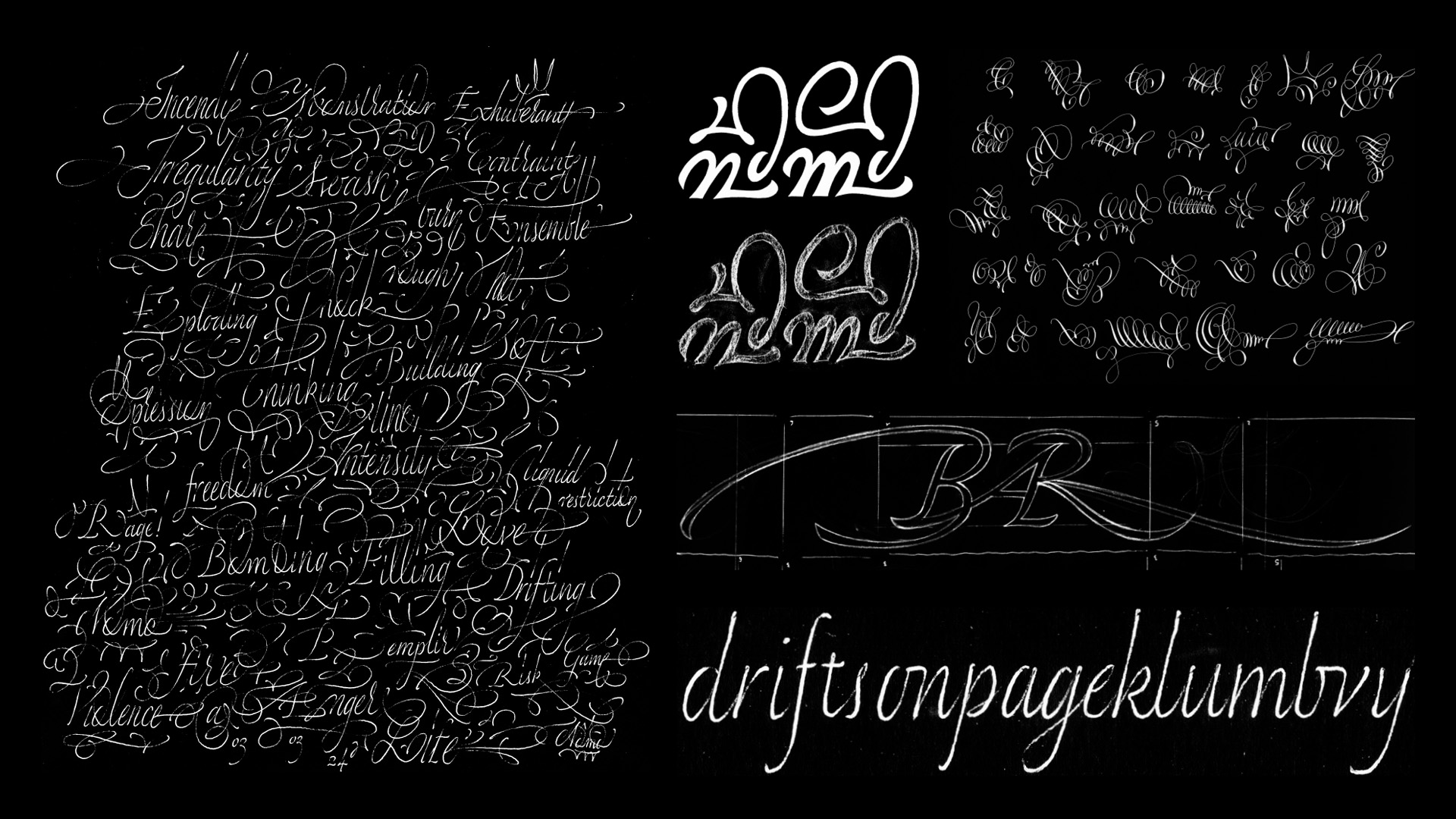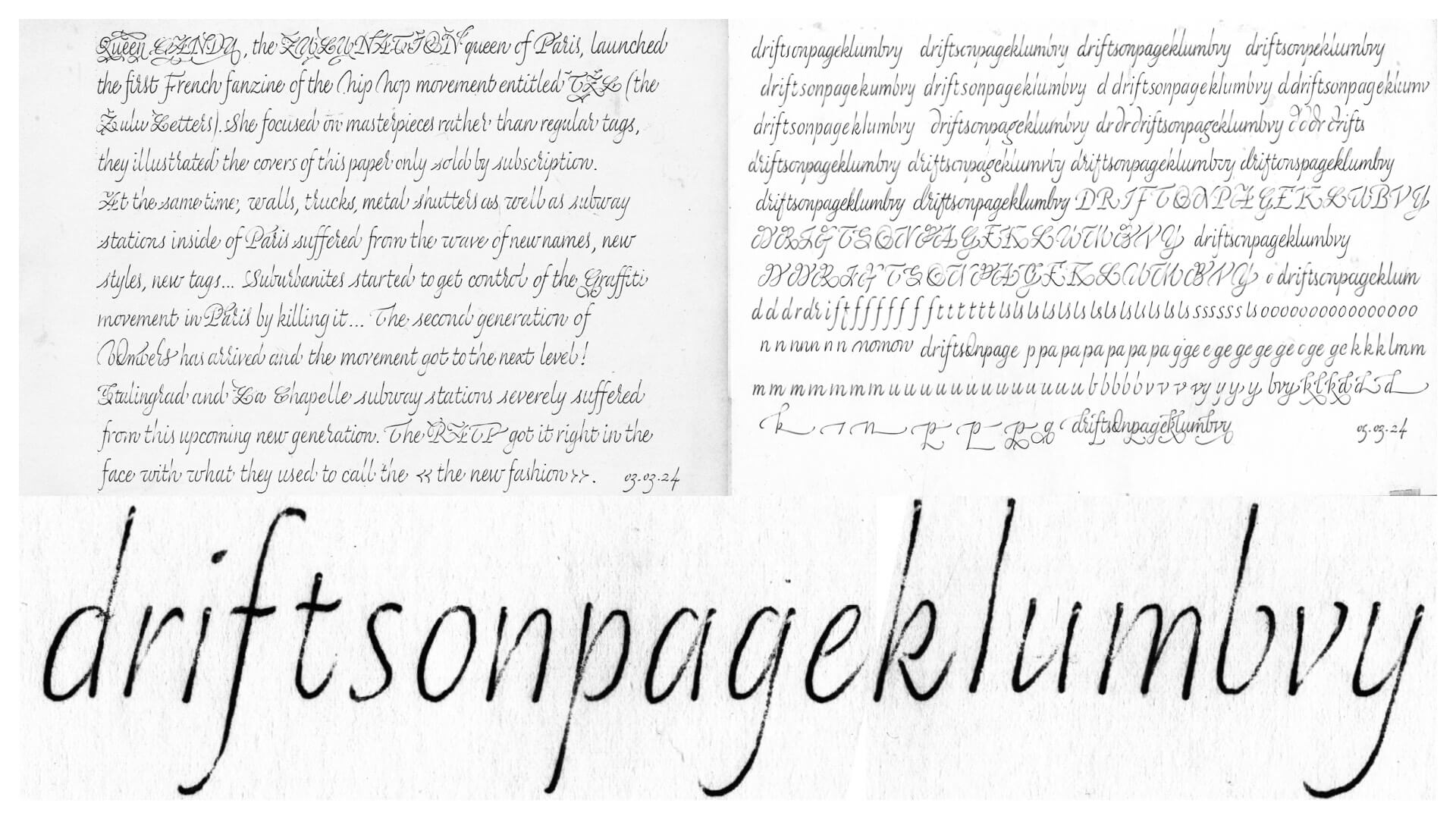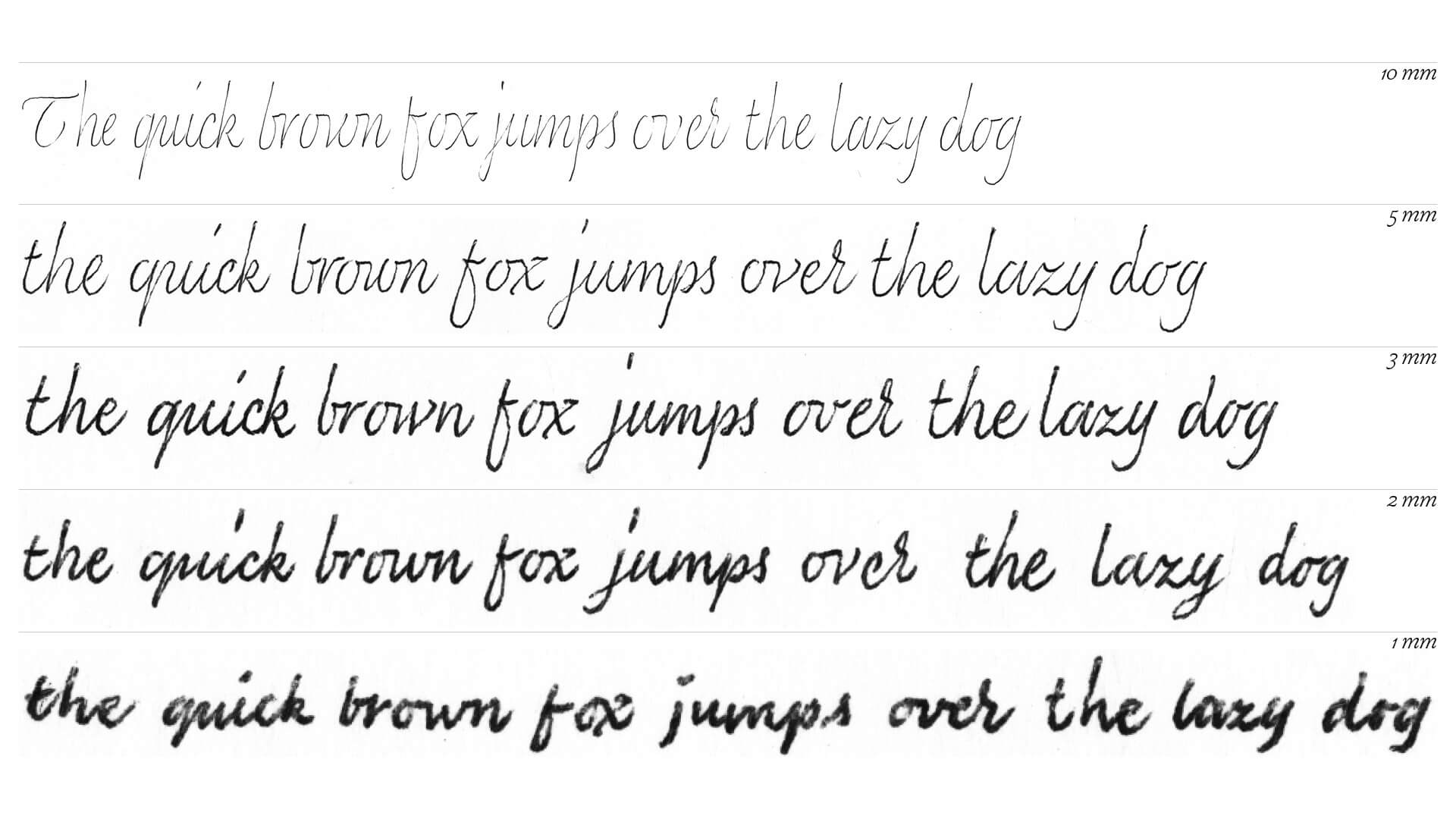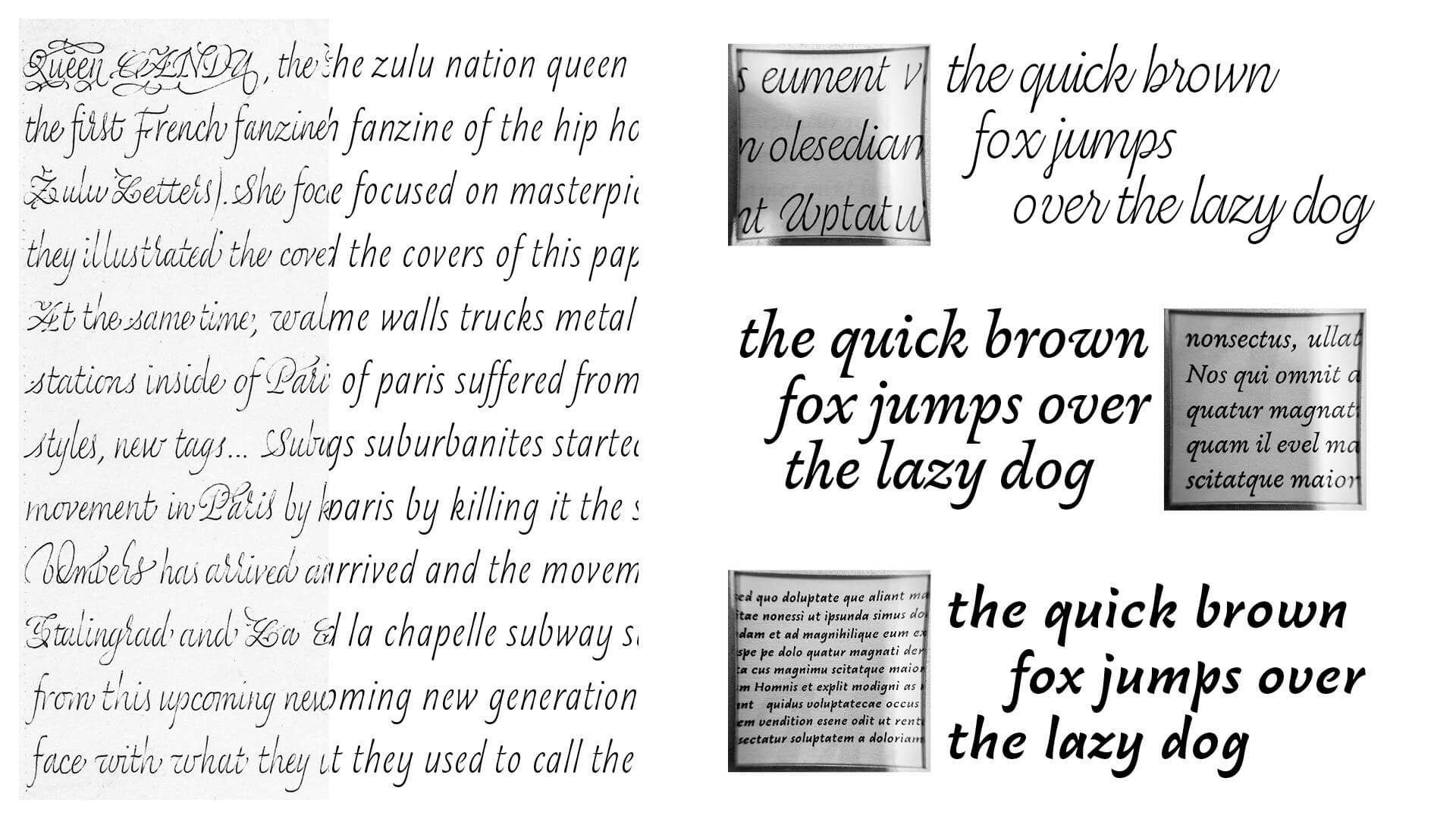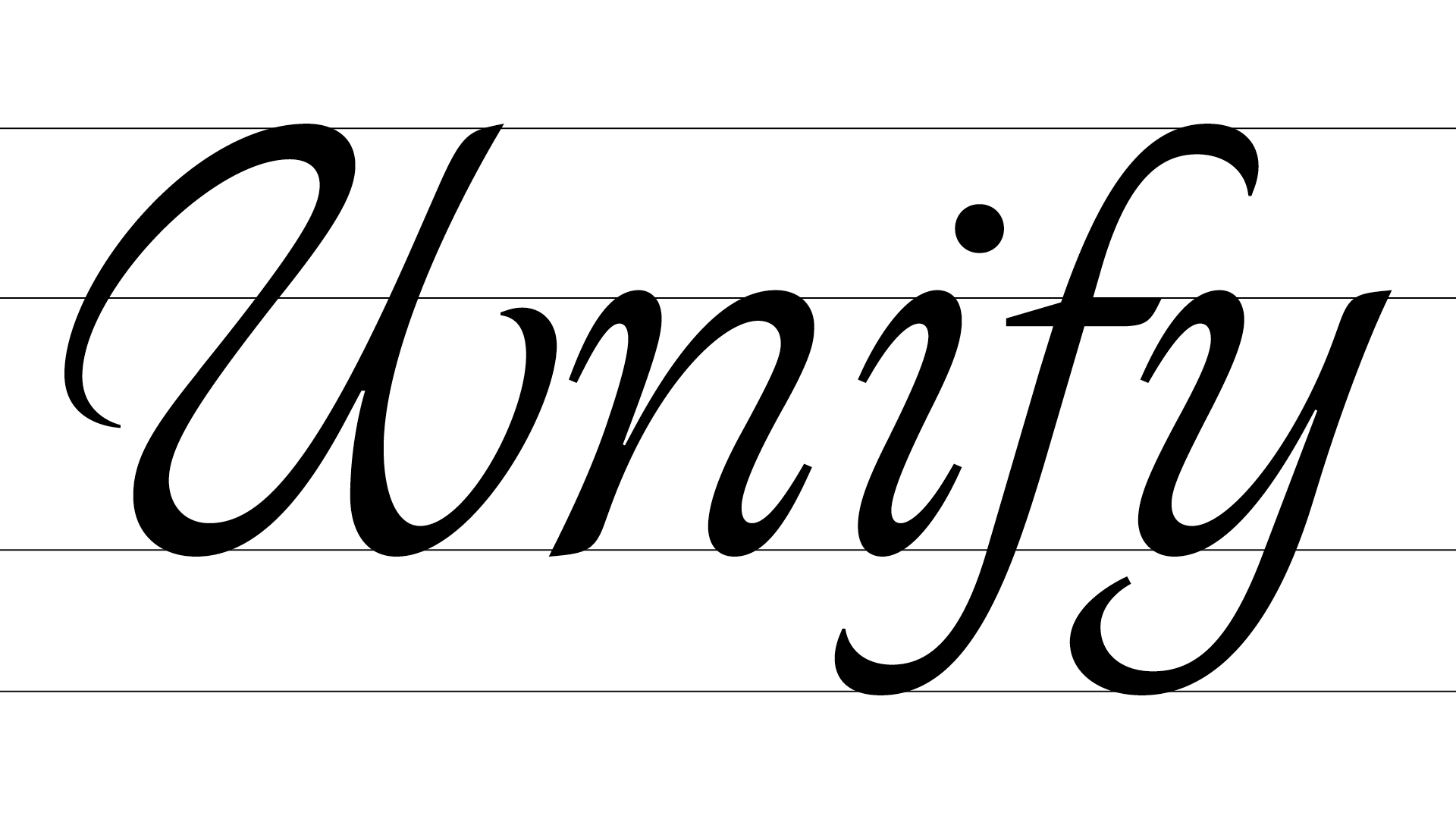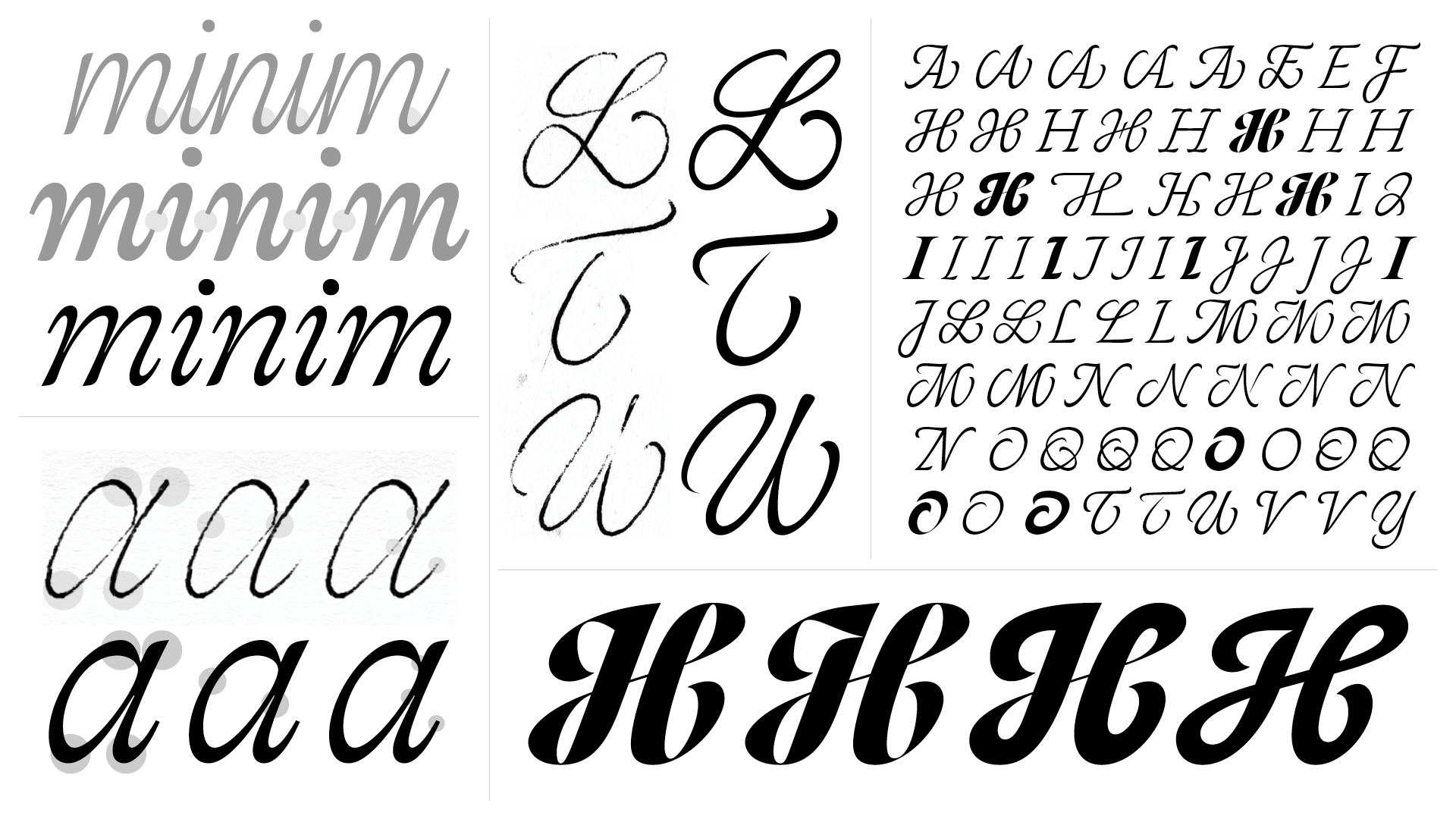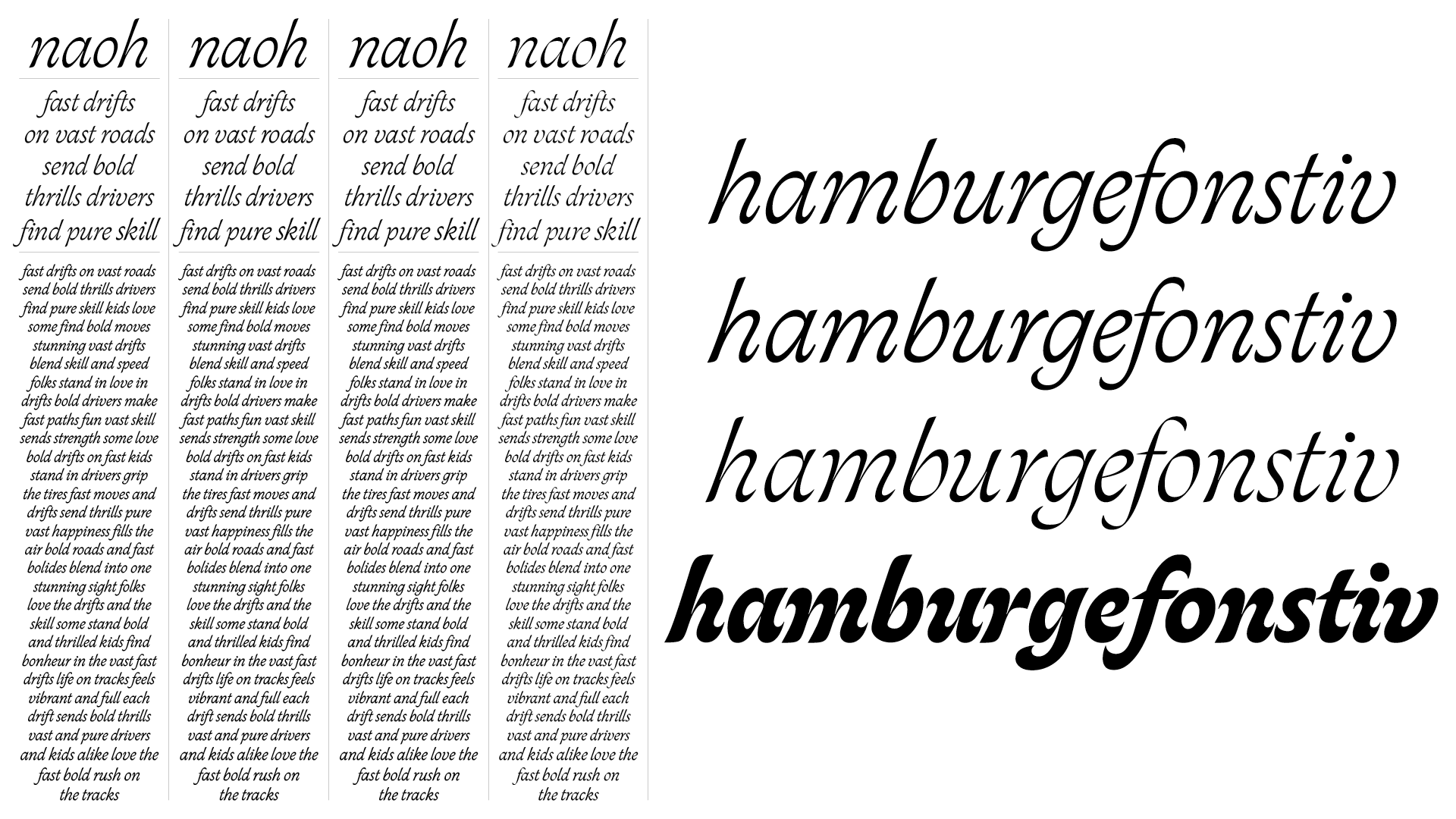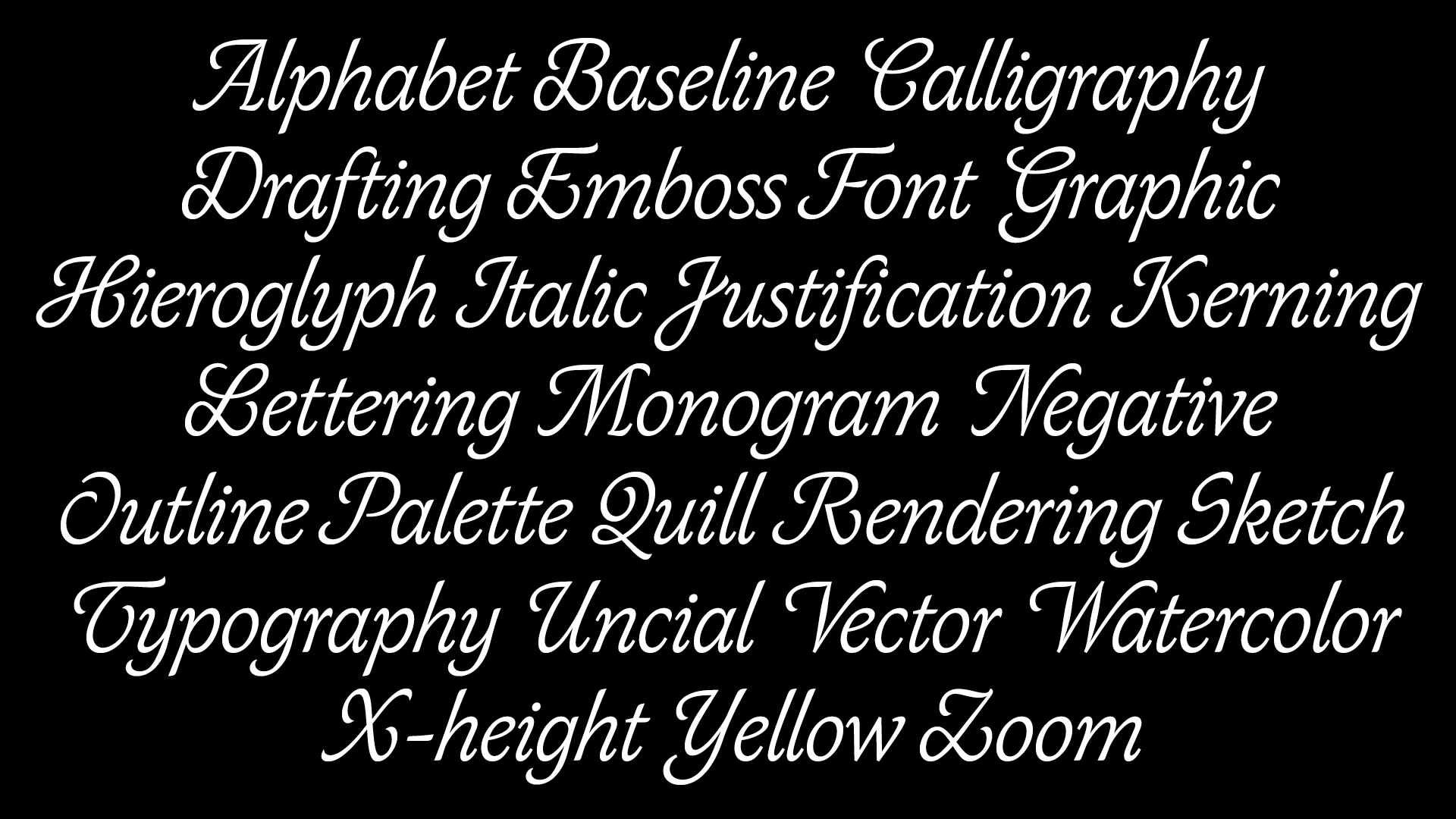
Benjamin Rouzaud is a French type designer and calligrapher. He previously studied graphic design and typography in Paris at École Duperré and École Estienne. Alongside his work as a freelance designer he developed an analogue practice of calligraphy which he now merges with digital tools to explore the expressive potential of writing systems. He focuses on the interaction between written and spoken language with particular attention to form and formatting in relation to cultural identity, contemporary art and education.
Skeed is an exploration rooted in the use of a simple ballpoint pen where Benjamin embraced physicality and intuition to uncover unexpected letterforms shaped by movement and sensation. Throughout the programme, he engaged in writing exercises to navigate the balance between formal/informal structures. This process marked a shift from a purely instinctive calligraphic practice to a more methodical design approach revealing a fundamental tension between the practice of the hand and the practice of digital design.
To find the right direction Benjamin first had to accept that digital tools would inevitably change the feeling of the ballpoint pen calligraphy, so the goal became to capture the gesture rather than replicate it exactly. He focused on clarity and readability while striving to preserve sensitivity within the constraints of digital design.
Skeed consists of an italic with interpolating variations in weight, a set of ligatures and a selection of swashed alternatives for the capitals.